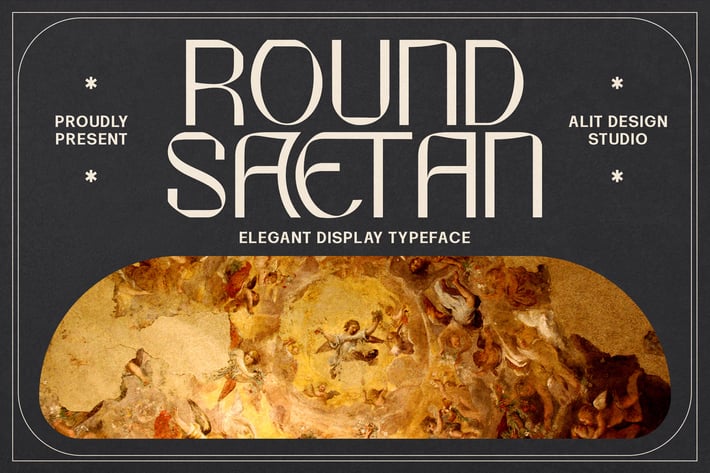
Round Saetan Typeface
Introducing Round Saetan Typeface
The Round Saetan Typeface was created with a modern concept of display font which gives a unique impression because it has a folded shape like a ribbon. The sans serif style adopted by the Round Saetan font is a 2022 style font, has a unique swash alternative, has a large selection of ligatures. In addition.
Sans Serif typefaces such as “ Round Saetan typeface” are very easy to apply to any design, especially those with an elegant and smooth concept, besides that this font is very easy to use both in design and non-design programs because everything changes and glyphs are supported by Unicode (PUA).
The Round Saetan typeface contains 662 glyphs with many unique and interesting alternative options. In the poster preview all the letters are in the Round Saetan typeface.